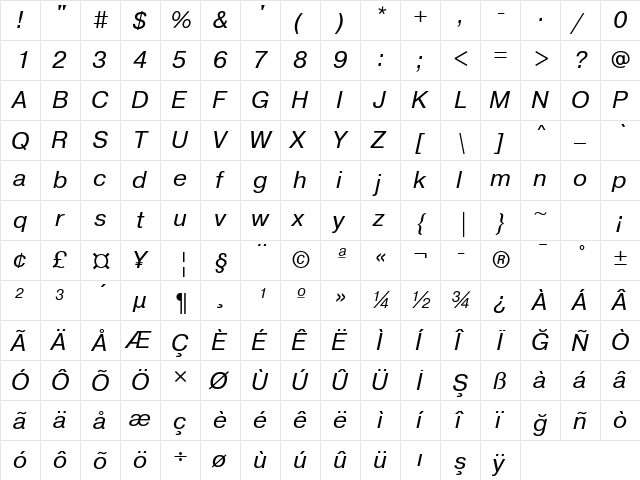
PragmaticaTTT Italic Font Preview
PragmaticaTTT Italic
PragmaticaTTT Italic Font Details
Design Context for PragmaticaTTT Typeface
PragmaticaTTT offers clean, dependable letterforms without strong stylistic allegiance, making it a practical choice for designers who need flexibility. Its italic angle brings a sense of urgency and motion to the letterforms.